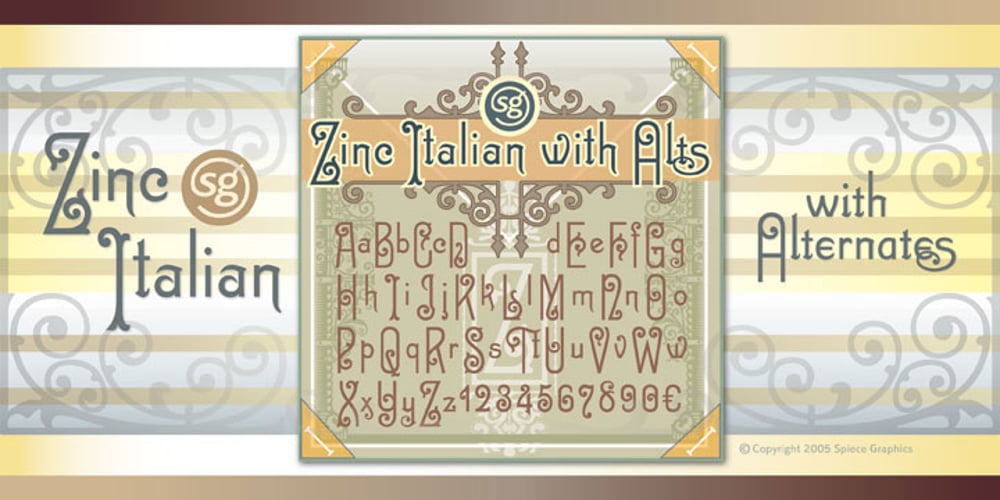
Zinc Italian SG Font Family was designed by Hermann Ihlenburg and published by Spiece Graphics. Zinc Italian SG contains 1 styles and family package options. As a unique example of late nineteenth and early twentieth century Victorian type, Zinc Italian emits a strikingly beautiful and twinkling luminescence. Oversized initial caps, each containing intricate swirls and curlycues, vibrate stunningly alongside a variety of amusing lowercase letters. Also known as Zinco, this typeface is generously equipped with a charming set of alternate characters including capital figures and some easier-to-decipher lowercase letters. Zinc Italian with Alternates is also available in the OpenType Std format. Some new features including discretionary ligatures and expanded standard ligatures have been added to this OpenType version. Advanced features currently work in Adobe Creative Suite InDesign, Creative Suite Illustrator, and Quark XPress 7. Check for OpenType advanced feature support in other applications as it gradually becomes available with upgrades.